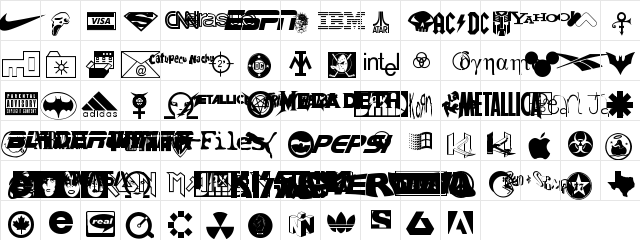
Famous Logos Regular
Design Context for Famous Logos Typeface
Famous Logos is a composed and adaptable typeface that performs quietly and consistently across a wide range of design contexts.